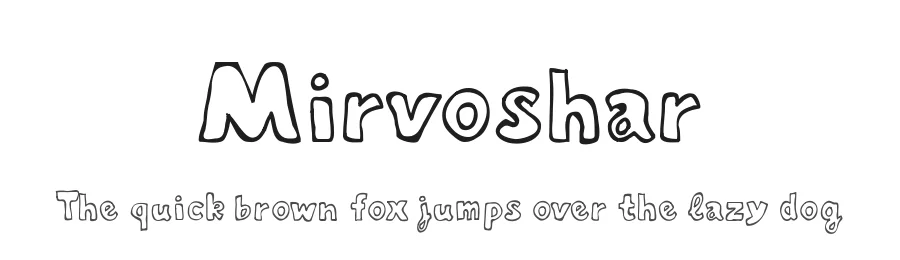
About Bad House Font
Bad House.
MMXXI
Bad House Font is a decorative font that shines as a display or heading face. Pair it with a clean sans-serif or serif font for body text β the contrast creates a clear hierarchy while the two styles stay balanced and easy to read.